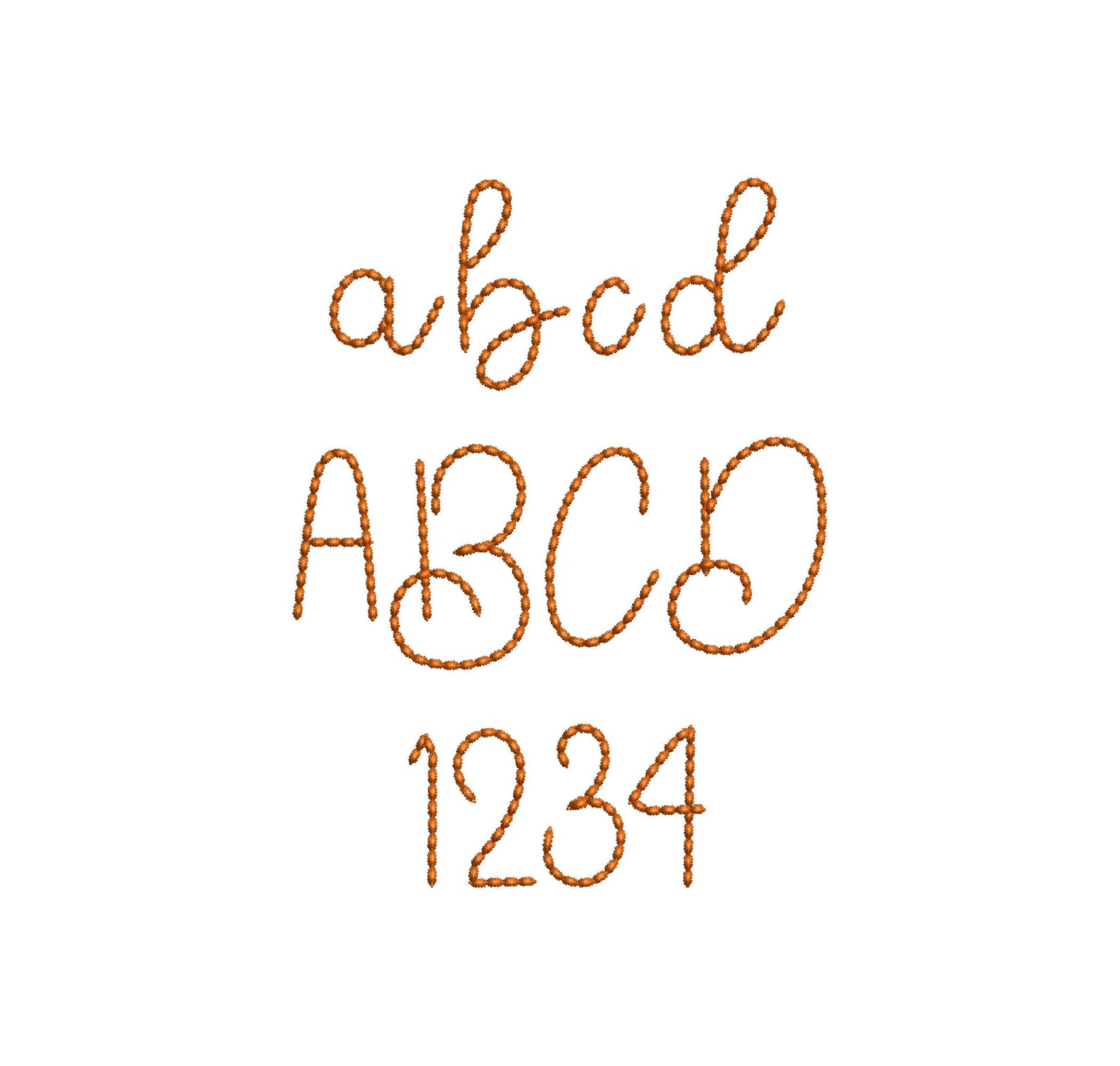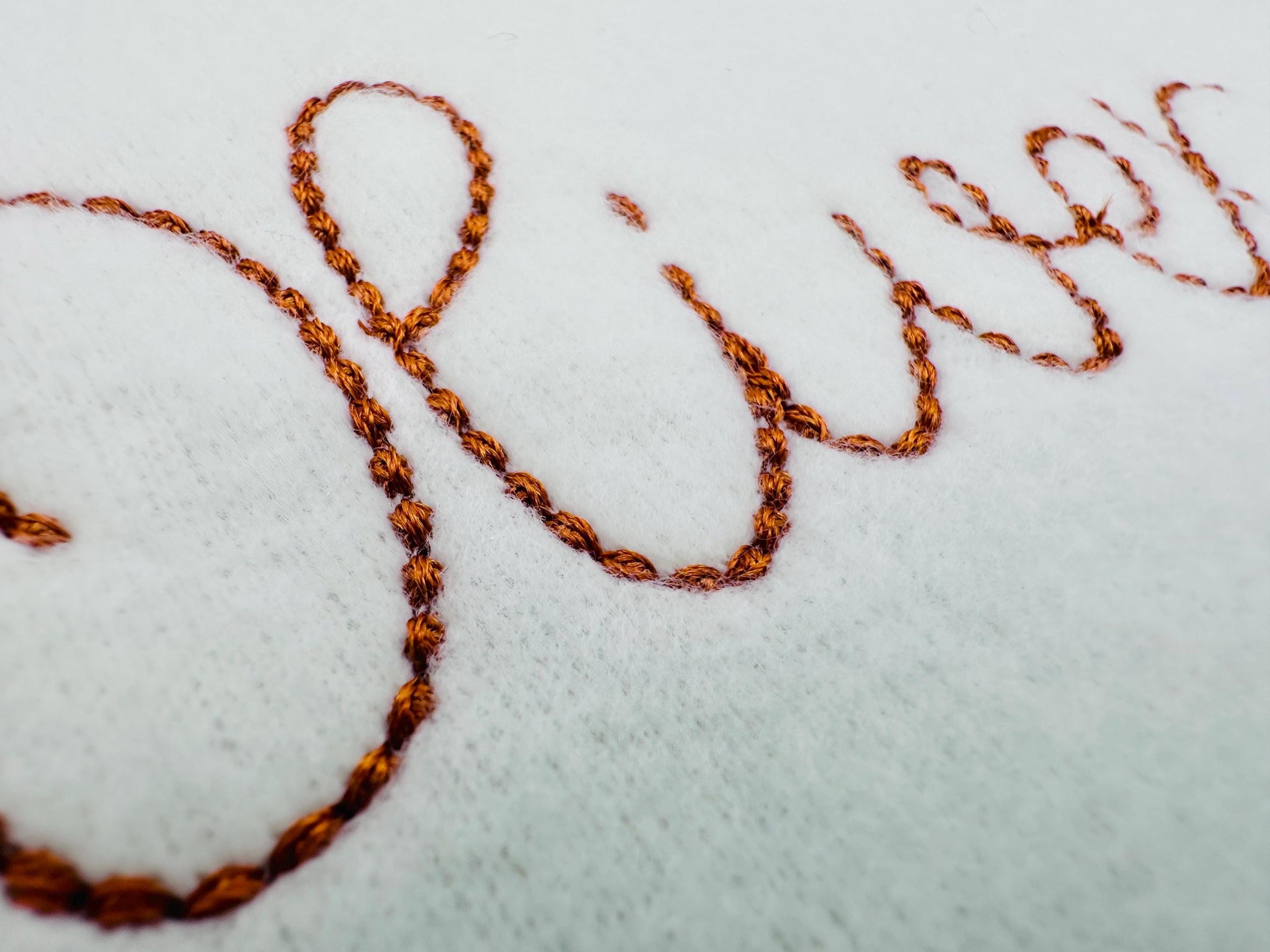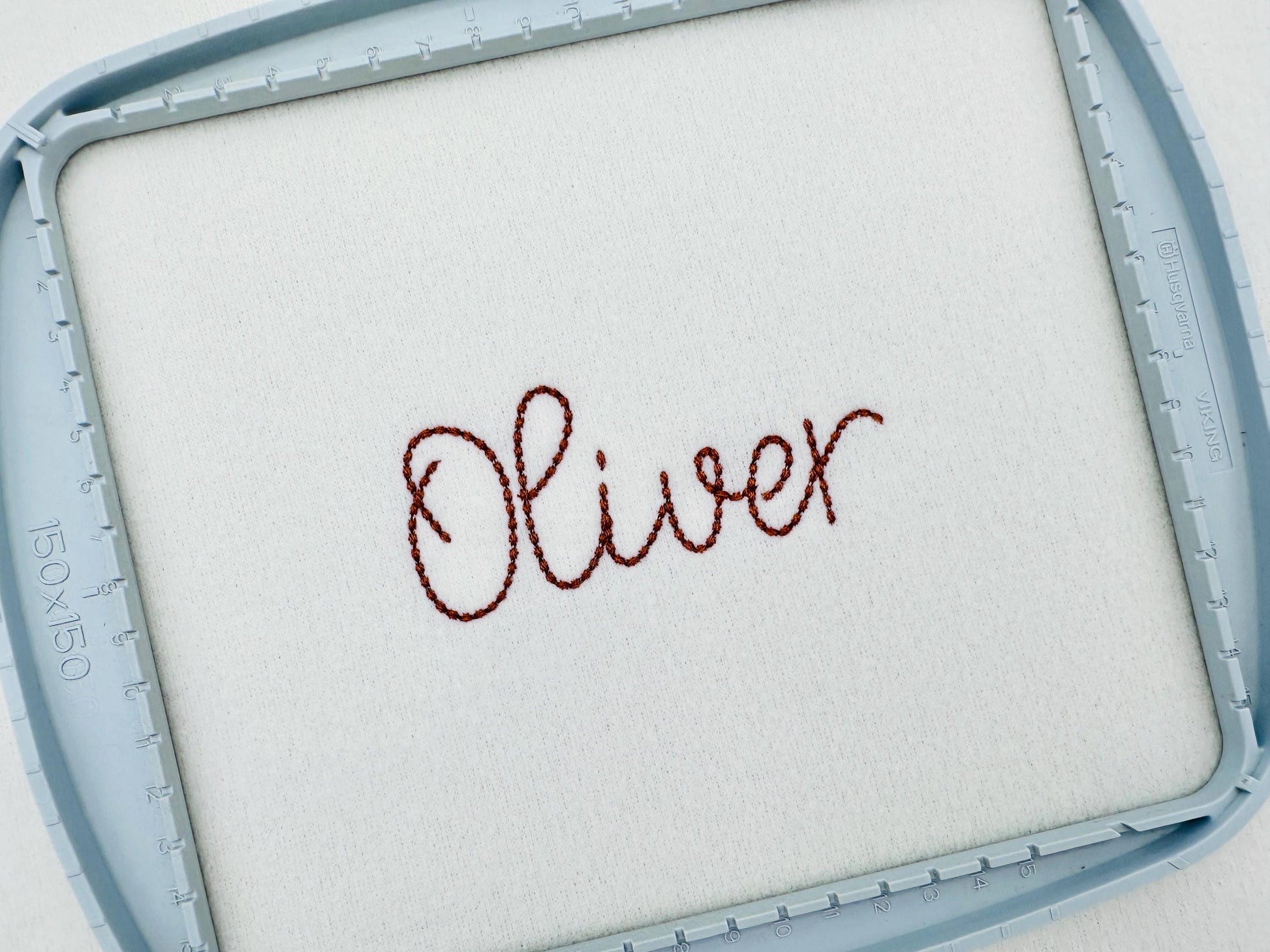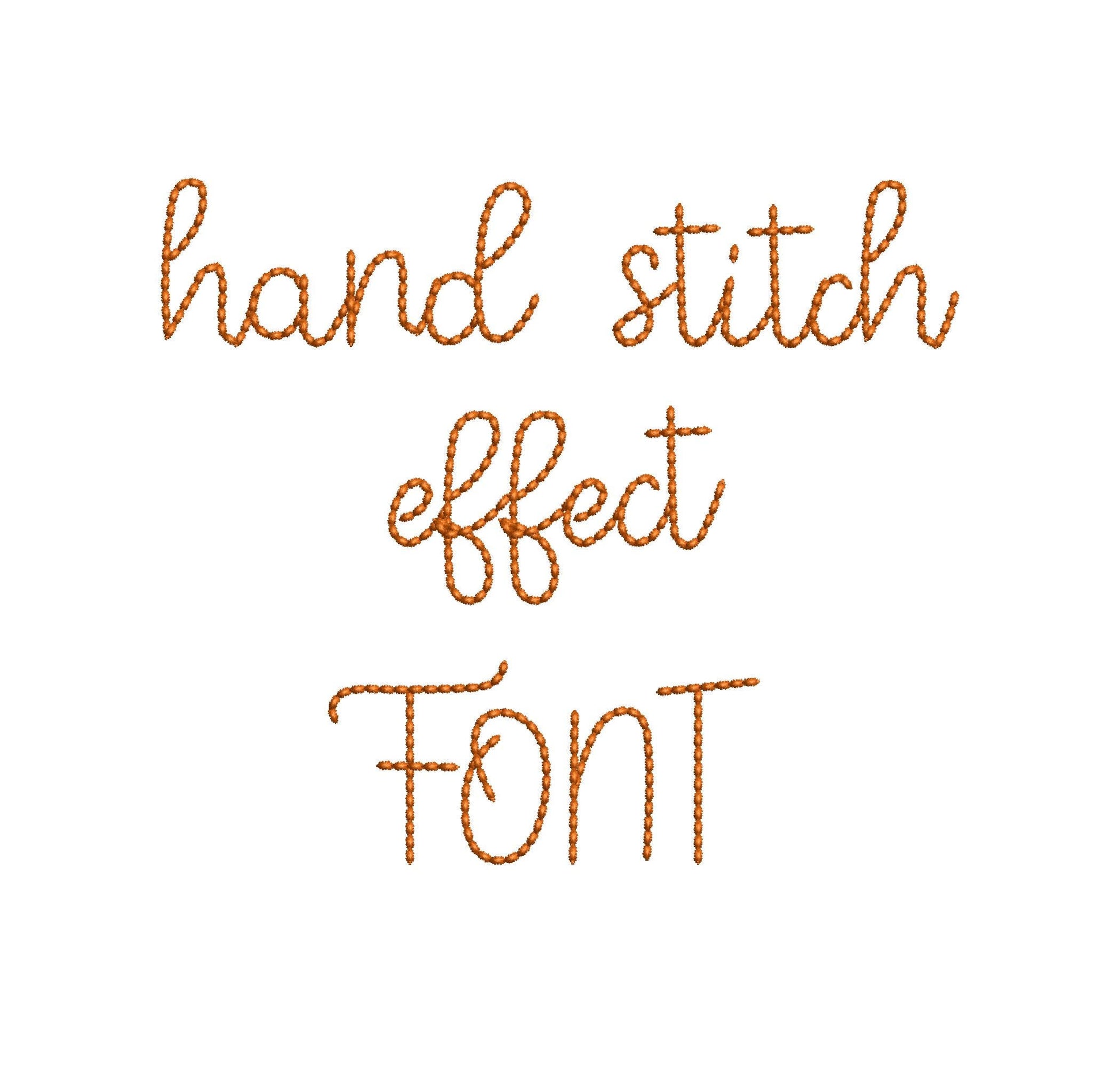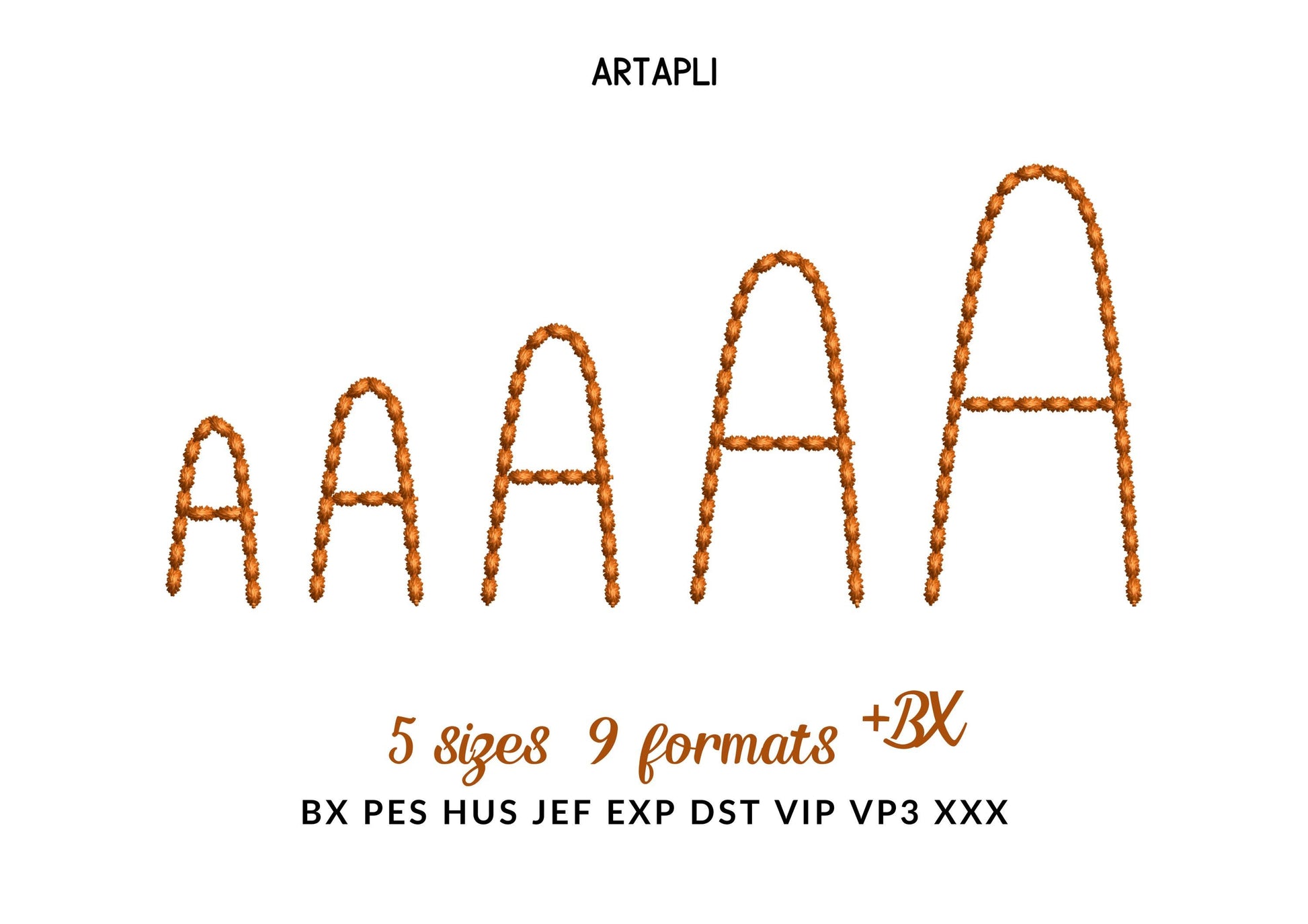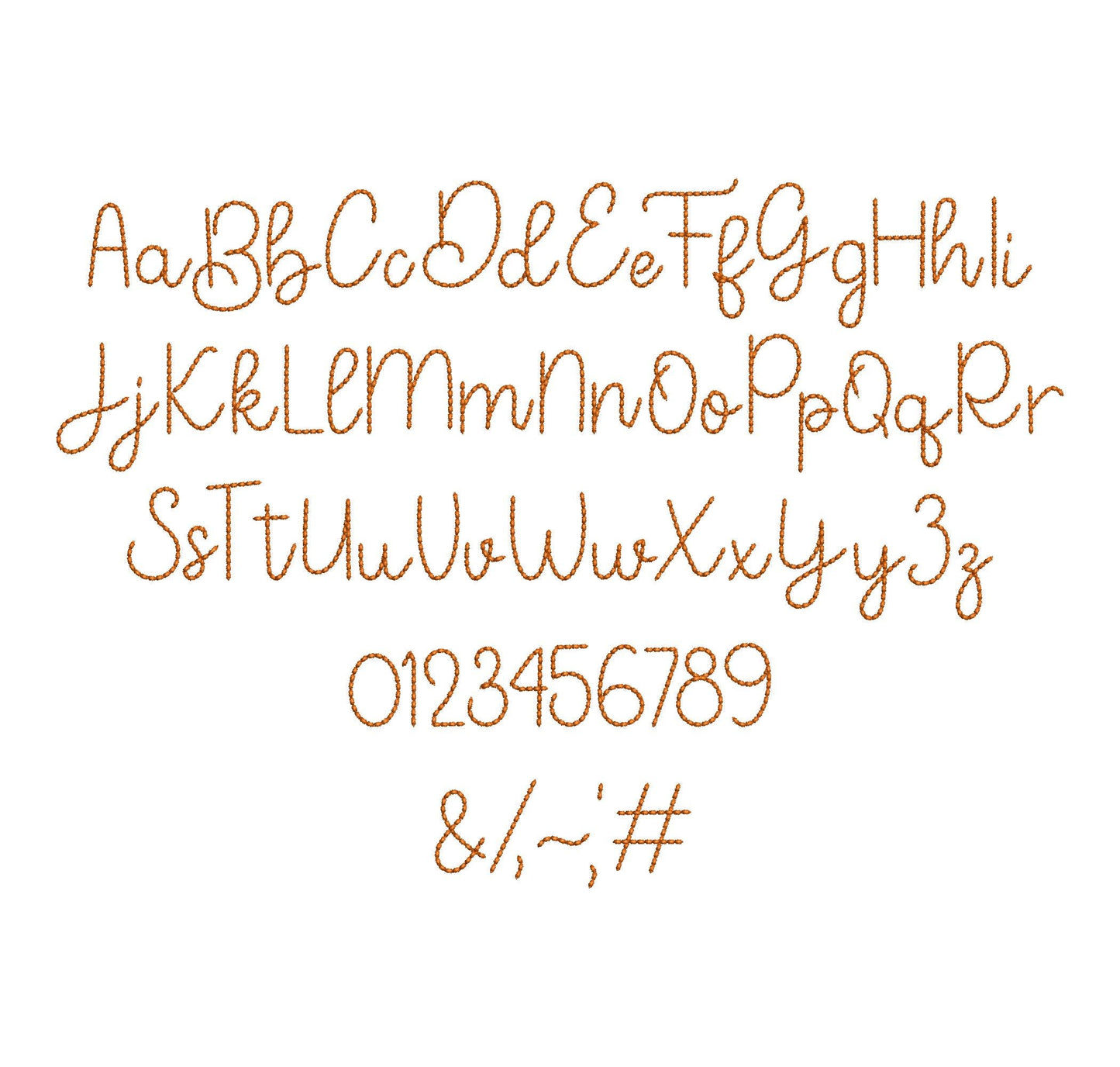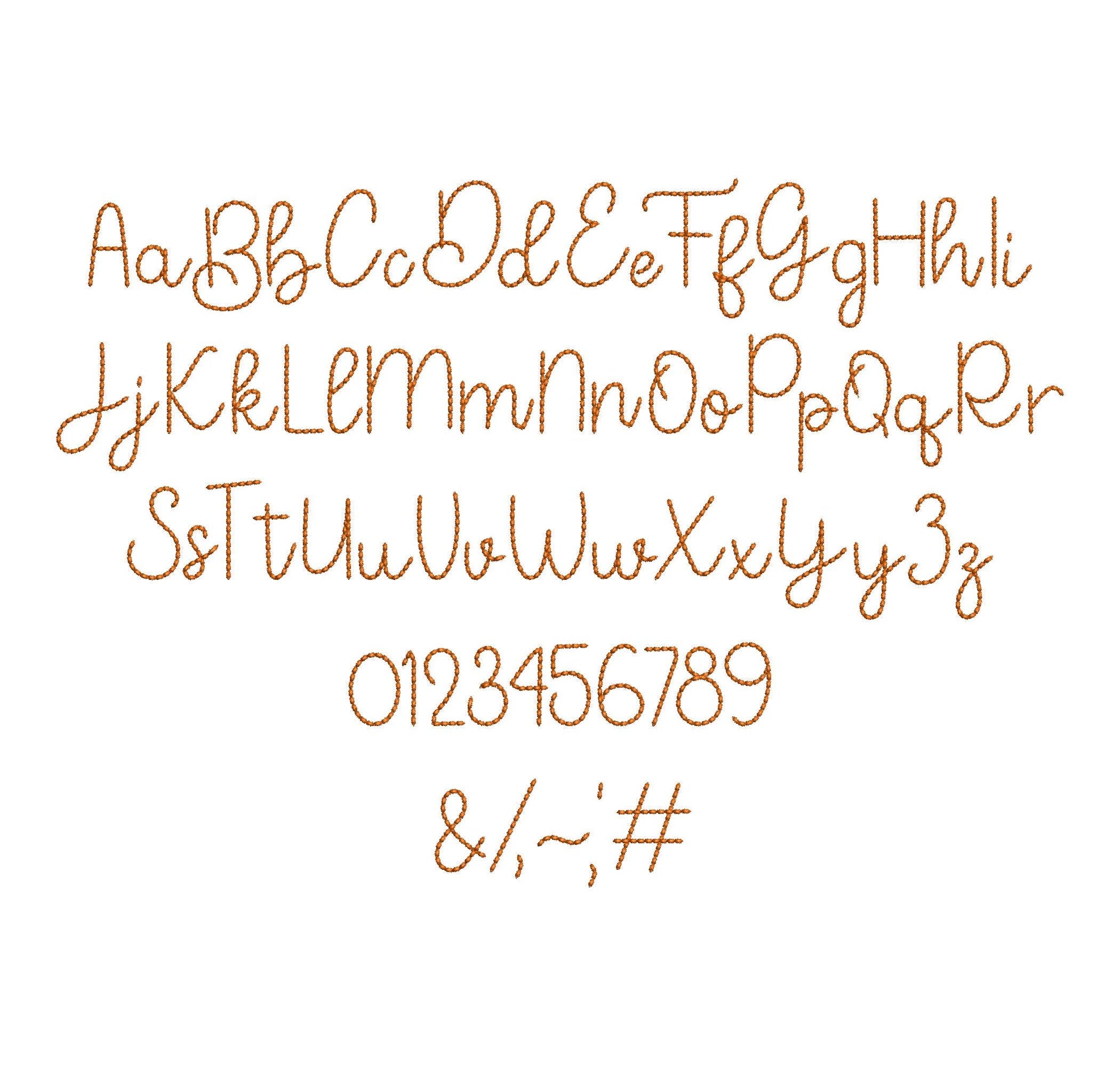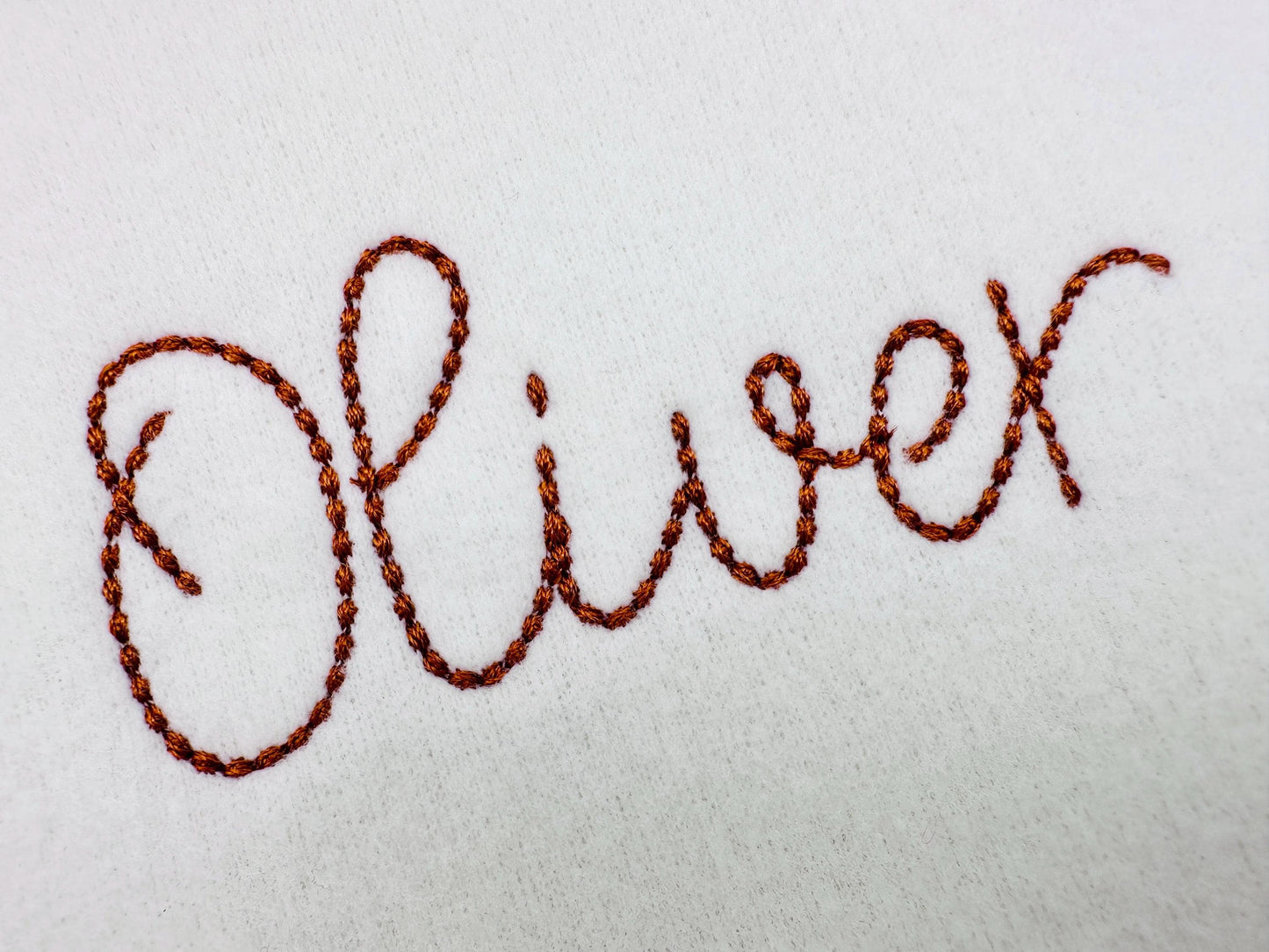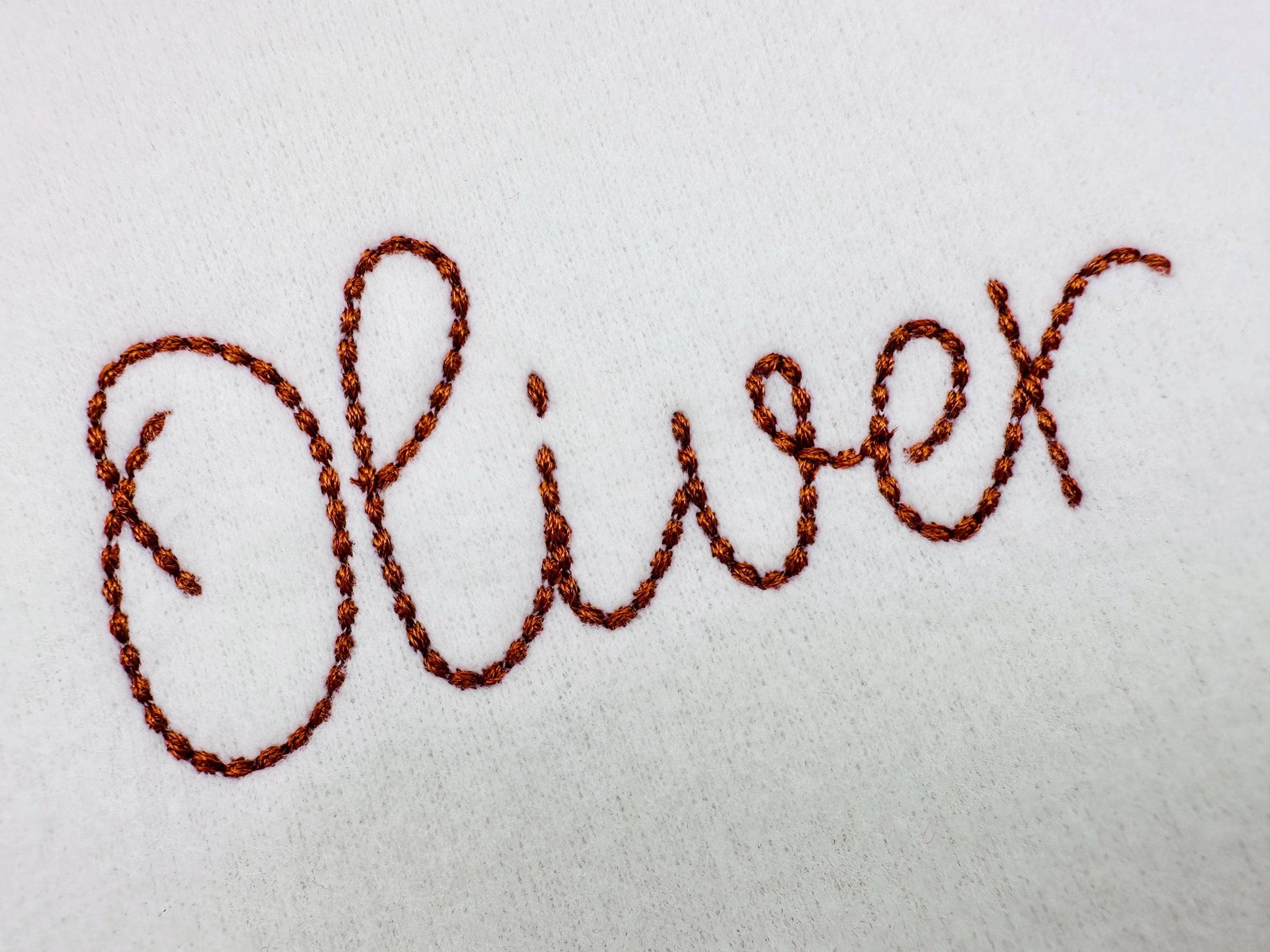
Script Font Bare Stitch
The letters come in five sizes: 0.9, 1, 1.3, 1.6 and 2 inches. A simple bean stitch line looks like hand embroidery. Includes uppercase and lowercase letters A to Z, numbers 0 to 9 and punctuation.
- Bean stitch script font, hand stitch look
- 5 sizes: 0.9, 1, 1.3, 1.6 and 2 in